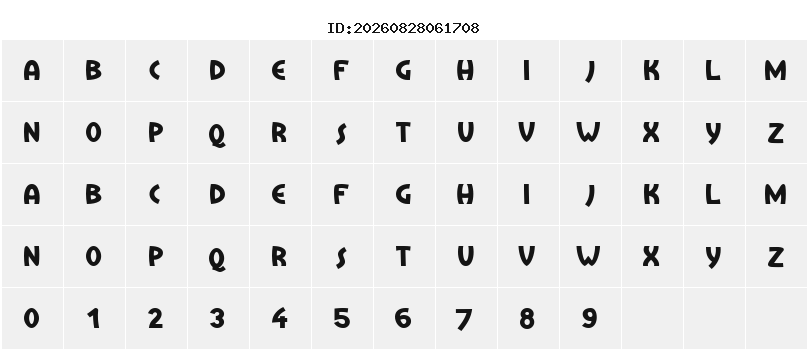
• Font Name: Treasure Island
• Full Font Name: Treasure Island
About Treasure Island.ttf
Treasure Island.ttf is a modern, elegant sans-serif font designed for ultimate readability and visual harmony. Perfect for branding, headlines, web design, and print materials.